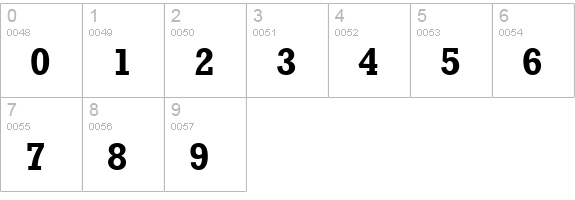
Rockney Bold is a strong, high-contrast variant in the Rockney typeface family \xE2\x80\x94 well suited to headlines, attention-grabbing titles, and strong calls-to-action.
Introducing Rockney Bold font - a striking and dynamic typeface that exudes confidence and modernity. With its bold and powerful design, Rockney Bold is perfect for making a statement in your designs. This versatile font is ideal for headlines, logos, posters, and more, adding a bold and impactful touch to any project. What's even better is that Rockney Bold is completely free to download at FontsMarket.com. So you can easily access this stunning font and elevate your designs without any cost. Don't miss out on this amazing opportunity to enhance your projects with the eye-catching Rockney Bold font. Download it now and start creating standout designs today!